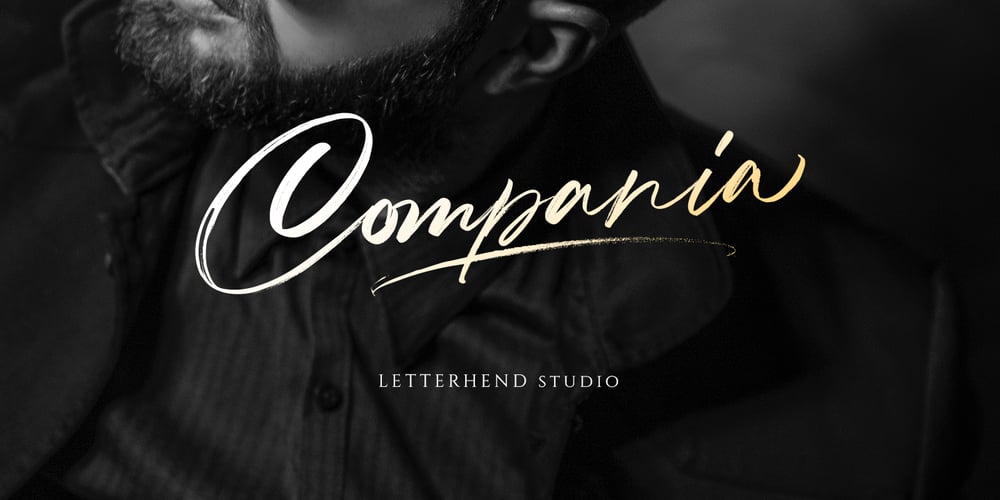
Compania Font Family was designed by Hendry Juanda and published by Letterhend. Compania contains 1 styles and family package options. Compania is a luxury signature script. The natural hand writing feel make this font stand out. This font is perfect for logos, magazines, books, greeting / wedding cards, packaging, fashion, make up, stationery, novels, labels or any type of advertising purpose.Features : uppercase & lowercase numbers and punctuation multilingual support ligatures alternates PUA encoded We highly recommend using a program that supports OpenType features and Glyphs panels like many of Adobe apps and Corel Draw, so you can see and access all Glyph variations.Email us to letterhend@gmail.com if you need something! Happy Designing!